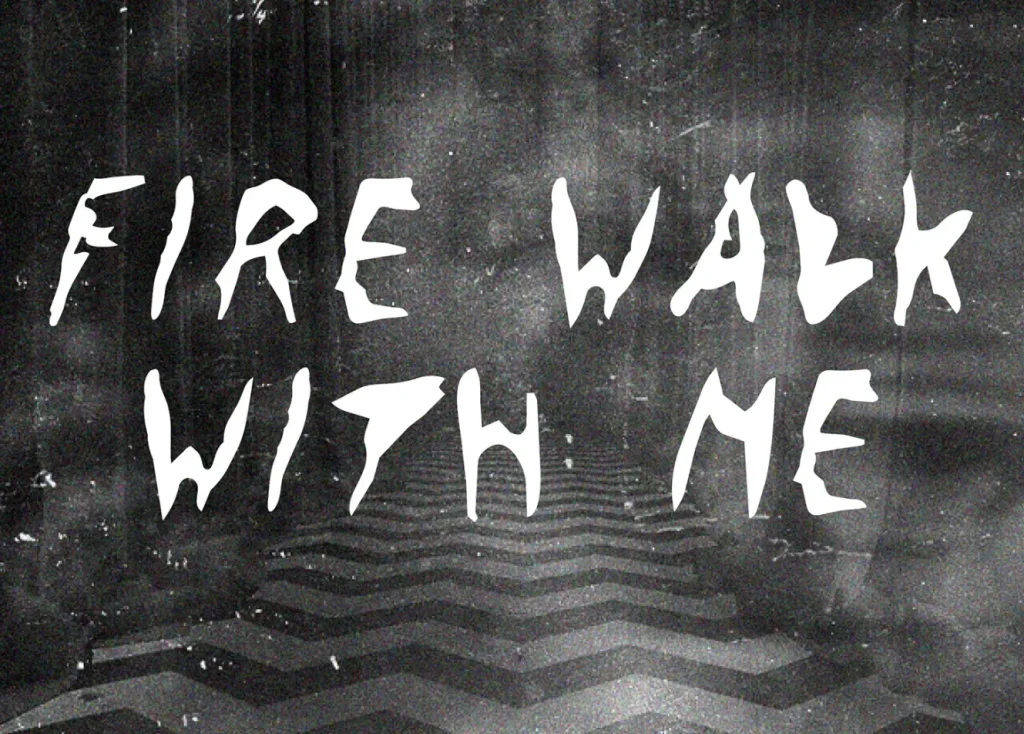
Fire Walk With Me is a free hand-drawn brush font inspired by the cinematic world of Twin Peaks.
Bruna Martins drew each character on paper with a marker pen to echo the handwriting seen in the letter found at Laura Palmer’s crime scene.
The font is ideal for poster titles, editorial covers, album artwork, title graphics, and display typography that calls for an expressive handmade look.
- Hand-drawn brush letterforms.
- Characters drawn on paper with a marker pen.
- Lettering influenced by the handwriting associated with Laura Palmer’s crime scene.
- Display-focused handwritten style.